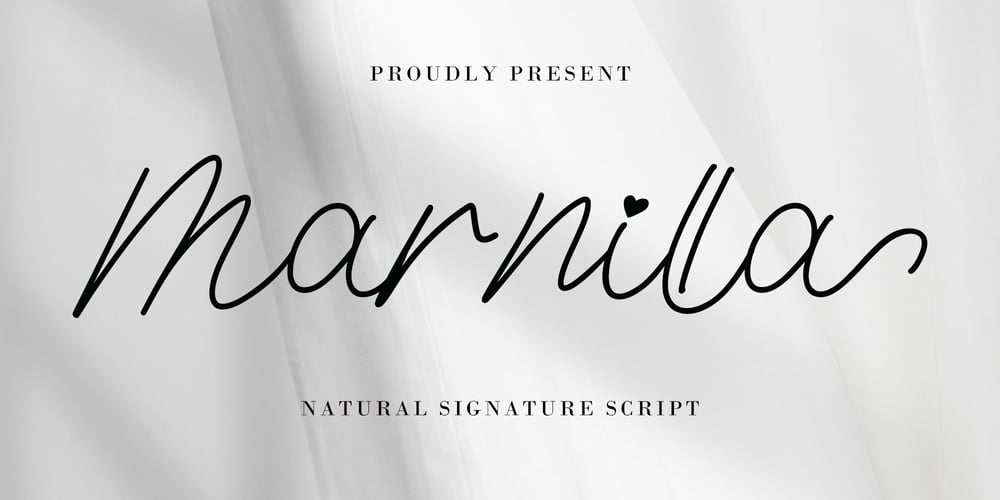
Marnilla Signature Font Family was designed by Agung Eko Nugroho and published by AEN Creative Studio. Marnilla Signature contains 1 styles and family package options. Marnilla Signature is a beautiful, elegant, yet casual and simple script font, featuring a natural look & feel. It has beautiful swashes and ligatures and it’s perfect for logos, wedding invitations, posters, social media posts, signatures, quotes, and much more!